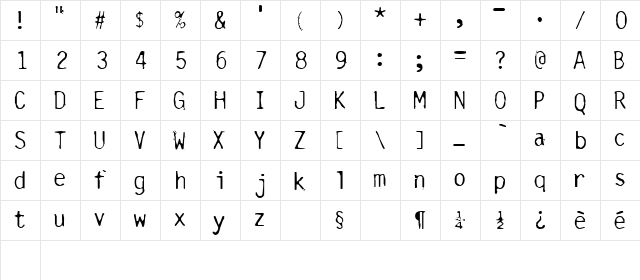
Carbonated Gothic Regular
Design Context for Carbonated Gothic Typeface
Carbonated Gothic takes a clean, functional approach — its unadorned letterforms prioritise legibility and work reliably across screen and print environments.
Font Pairing: Works well alongside a characterful serif or display font that can carry the expressive load while Carbonated Gothic handles the functional copy.
Pro Tip: Pair Carbonated Gothic with a display or serif font for headlines — its neutral character makes it an excellent supporting player in complex typographic systems.